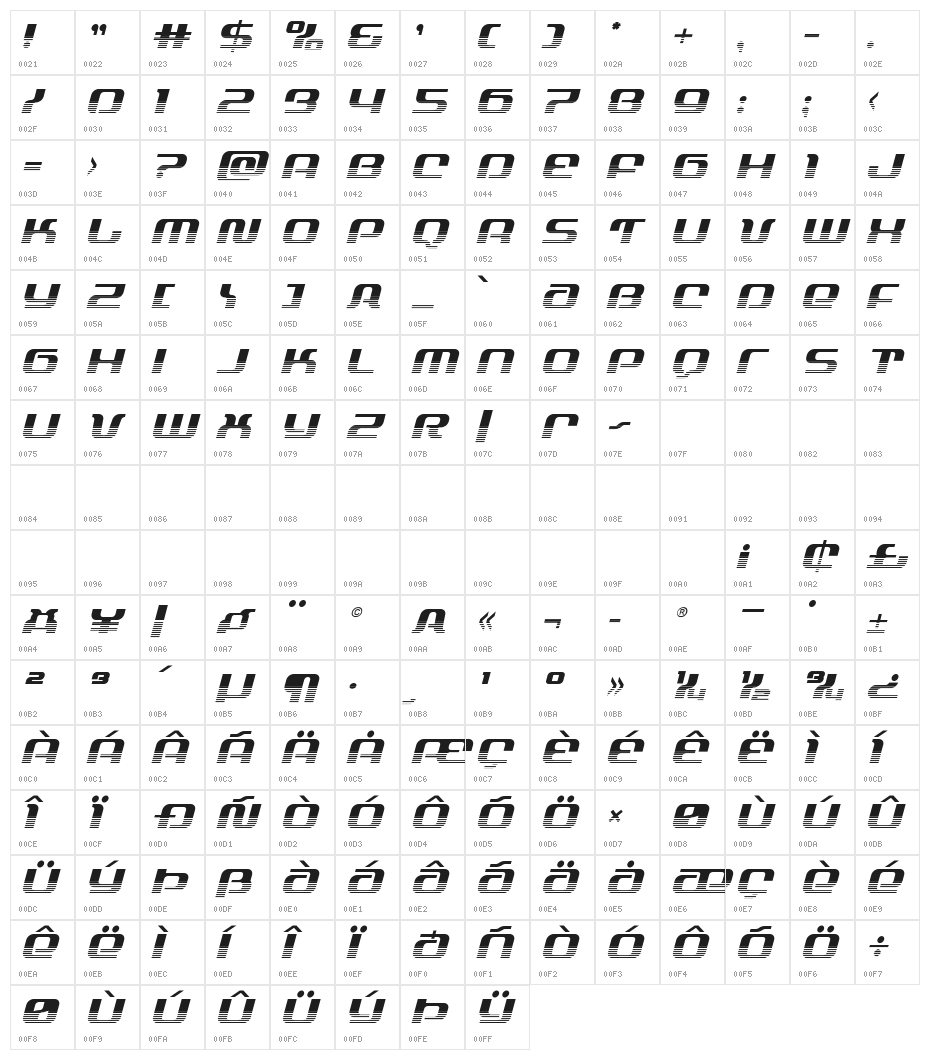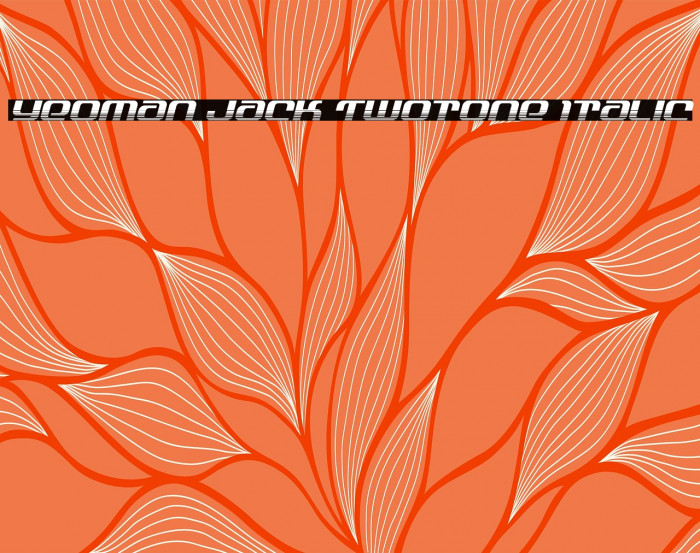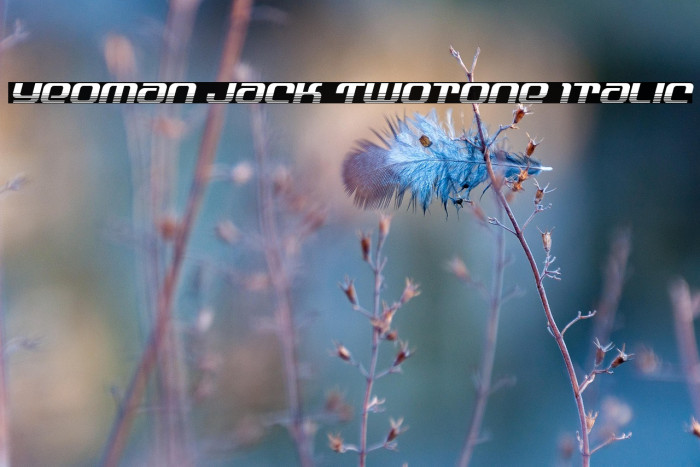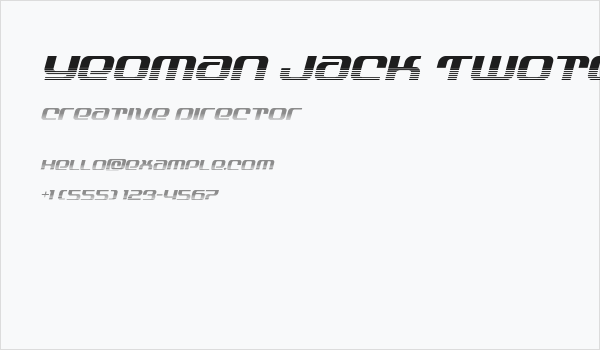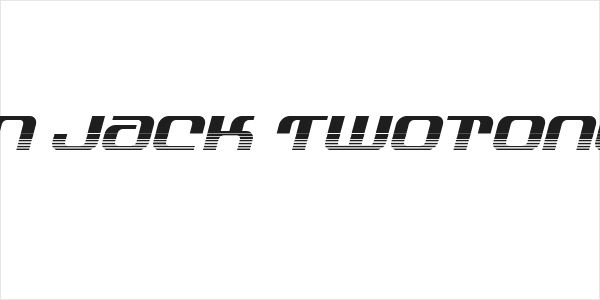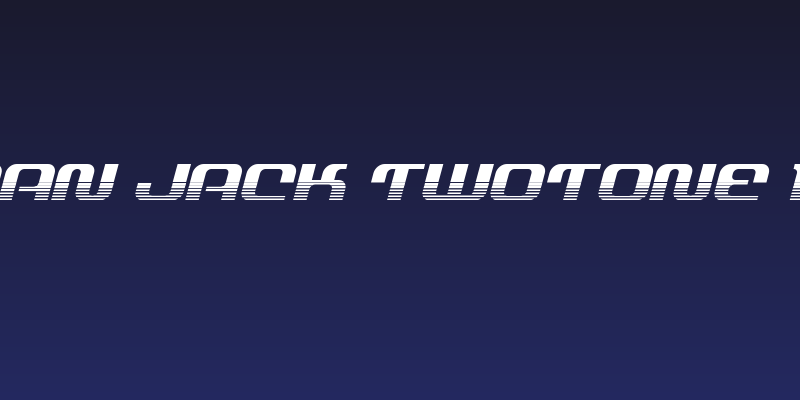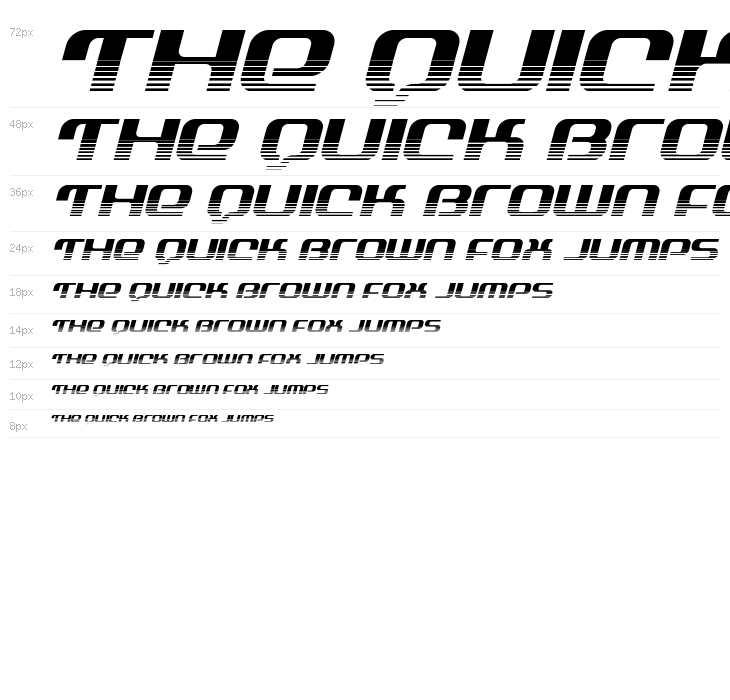
Yeoman Jack Twotone Italic Font
Yeoman Jack Twotone Italic Description
This font features a dynamic and modern design with a distinctive two-tone effect. The characters are italicized, giving them a forward-leaning, energetic appearance. Each letter is composed of horizontal lines that create a sense of movement and speed, making it ideal for futuristic or tech-oriented projects. The uppercase and lowercase letters maintain a consistent style, with the numbers and special characters following suit. This font's unique aesthetic makes it stand out, offering a bold statement in any design.